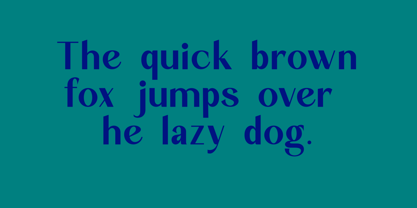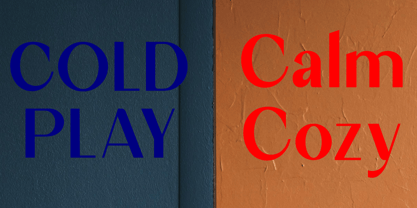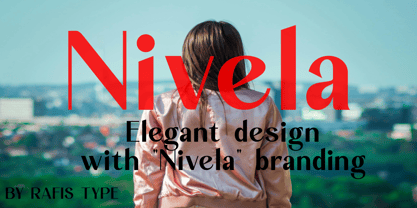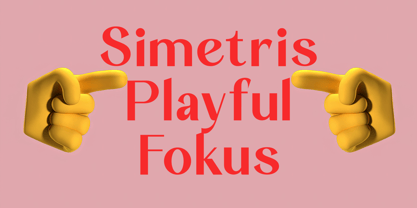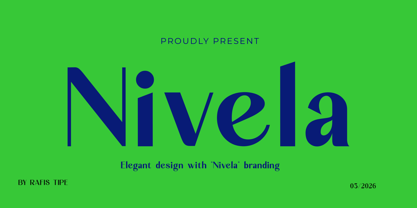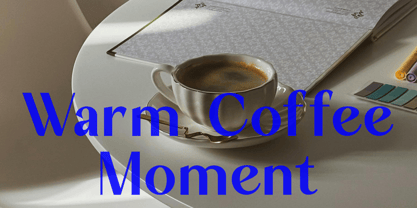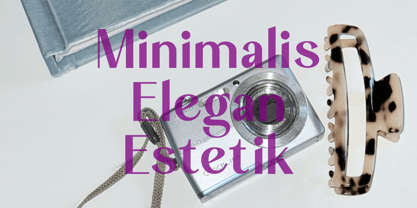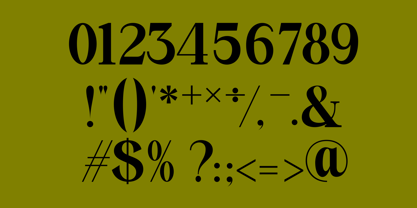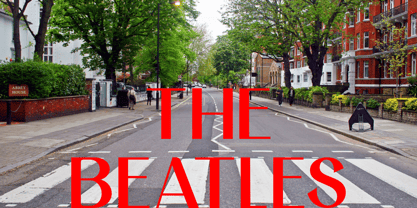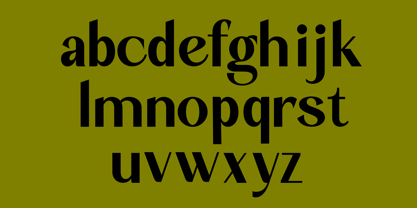
Nivela
by Rafis Type
The Nivela Font Family was designed by Agus Priono and published by Rafis Type. Nivela contains 2 styles and family package options. More about this family
Nivela is a modern sans serif typeface crafted with a clean, minimalist approach and a touch of elegance. Combining geometric precision with subtle humanist influences, Nivela delivers a perfect balance between professionalism and visual warmth. Designed for versatility, Nivela performs beautifully across a wide range of applications—from branding and logos to editorial layouts, websites, and social media content. Its well-balanced proportions and refined details ensure excellent readability in both large and small sizes.
Designers: Agus Priono
Current Foundry: Rafis Type